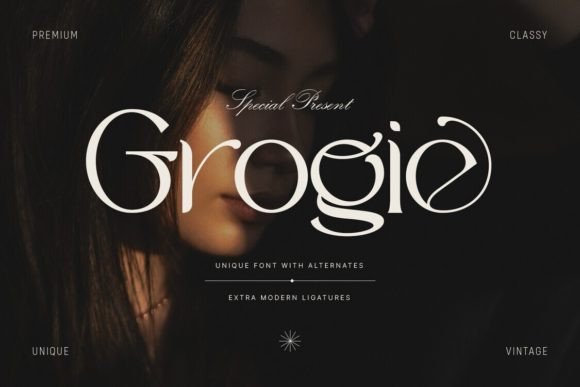
Grogie Font: Elevate Your Design with Modern Serif Elegance
In the realm of typography, a font can make or break the visual appeal of a design project. With the vast array of fonts available, finding the perfect one that exudes elegance and sophistication can be a daunting task. However, if you’re looking to add a touch of refinement to your design, look no further than Grogie – the modern serif font that’s taking the design world by storm.
Clean Lines and Timeless Beauty
Grogie boasts clean lines and a timeless beauty that makes it an ideal choice for a wide range of design applications. Its modern serif design ensures that your project looks fresh and contemporary, while the classic serif elements add a touch of sophistication. Whether you’re working on a logo, branding and marketing materials, or any other design project, Grogie is the perfect choice.
Perfect for Various Design Applications
Grogie’s versatility makes it an excellent choice for various design applications. Some of the ideal uses for this font include:
- Logos: Create a lasting impression with a logo that exudes elegance and sophistication.
- Branding and marketing materials: Establish a strong brand identity with Grogie’s modern serif design.
- Social promotions: Make your social media promotions stand out with Grogie’s clean lines and classic serif elements.
- Perfumes and fashion magazines: Add a touch of luxury to your perfume or fashion magazine with Grogie’s elegant design.
A Blend of Beauty and Class
Grogie has a unique blend of beauty and class that sets it apart from other fonts. Some of its notable characteristics include:
- Decorative characters: Grogie features a wide range of decorative characters that add a touch of elegance to your design.
- Alternative unique characters: The font also includes a spectacular number of alternative unique characters that will make your design stand out.
- Modern serif design: Grogie’s modern serif design ensures that your project looks fresh and contemporary.
Why Choose Grogie for Your Next Design Project?
With so many fonts available, why should you choose Grogie for your next design project? Here are just a few reasons:
- Elegance and sophistication: Grogie exudes elegance and sophistication, making it perfect for high-end design projects.
- Versatility: The font’s versatility makes it suitable for a wide range of design applications.
- Unique design: Grogie’s unique blend of beauty and class ensures that your design stands out from the crowd.
- Easy to read: The font’s clean lines and classic serif elements make it easy to read, even at small sizes.
Tips for Using Grogie Effectively
To get the most out of Grogie, here are some tips for using the font effectively:
- Use it sparingly: Grogie’s elegance and sophistication make it perfect for headlines and titles. Use it sparingly to create a lasting impression.
- Pair it with other fonts: Grogie pairs well with other fonts, especially sans-serif fonts. Experiment with different font combinations to find the perfect look for your design.
- Adjust the font size: Grogie looks great at a variety of font sizes. Experiment with different font sizes to find the perfect size for your design.
In conclusion, Grogie – the modern serif font – is the perfect choice for designers looking to add elegance and sophistication to their design projects. With its clean lines, timeless beauty, and versatility, Grogie is suitable for a wide range of design applications. Whether you’re working on a logo, branding and marketing materials, or any other design project, Grogie is sure to make a lasting impression.